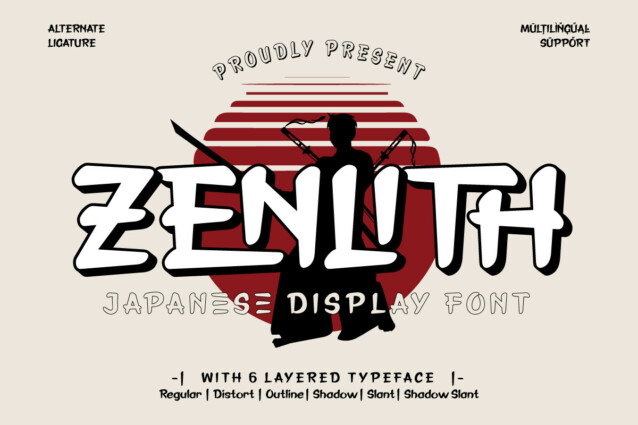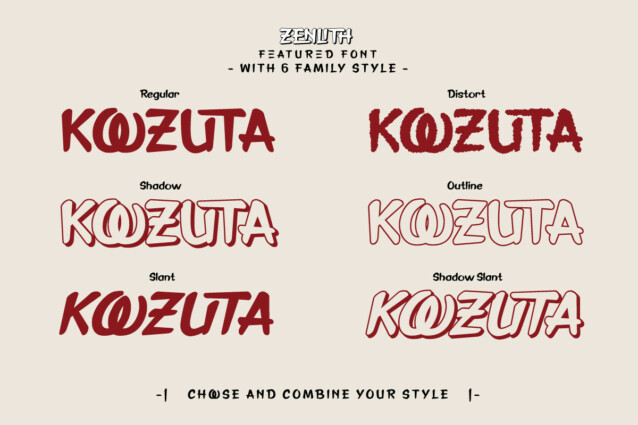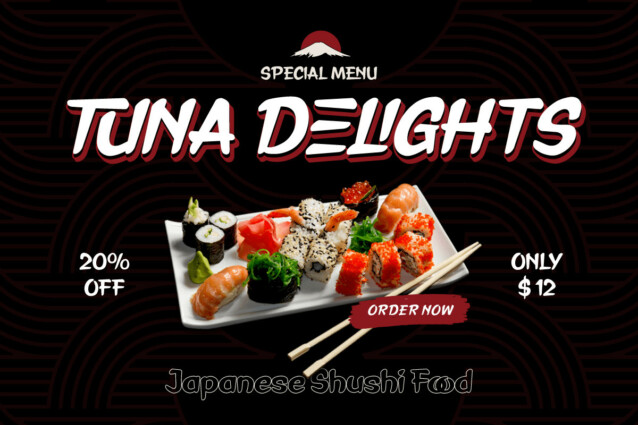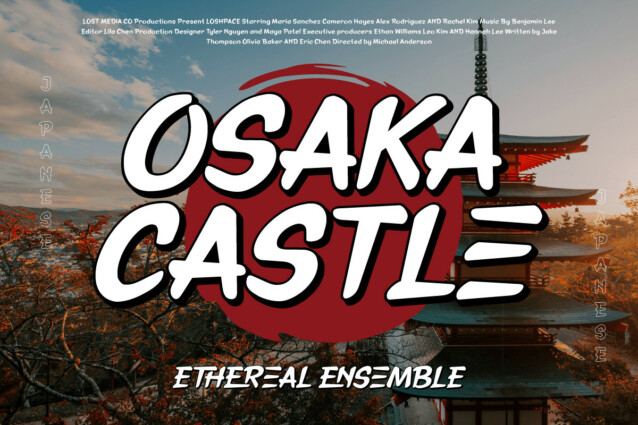
Zenlith Font is a custom design typeface inspired by Japanese aesthetics, creating a look that combines traditional elegance with modern elements. This font is designed to convey a distinctly Japanese feel, suitable for a variety of design projects related to Japanese culture or Asian aesthetics.
Each letter in Zenlith is designed with precision and subtlety, creating an elegant and artistic impression. This font adopts elements of Japanese typography but maintains a contemporary touch to maintain a balance between tradition and innovation.